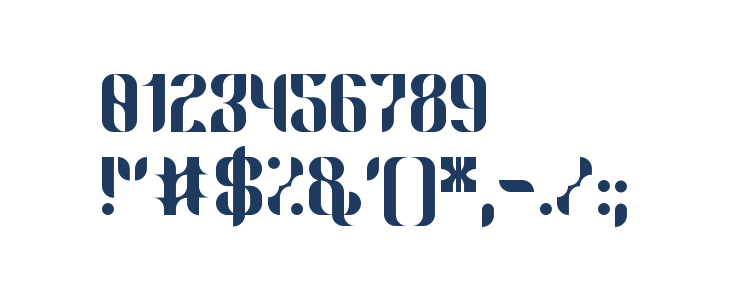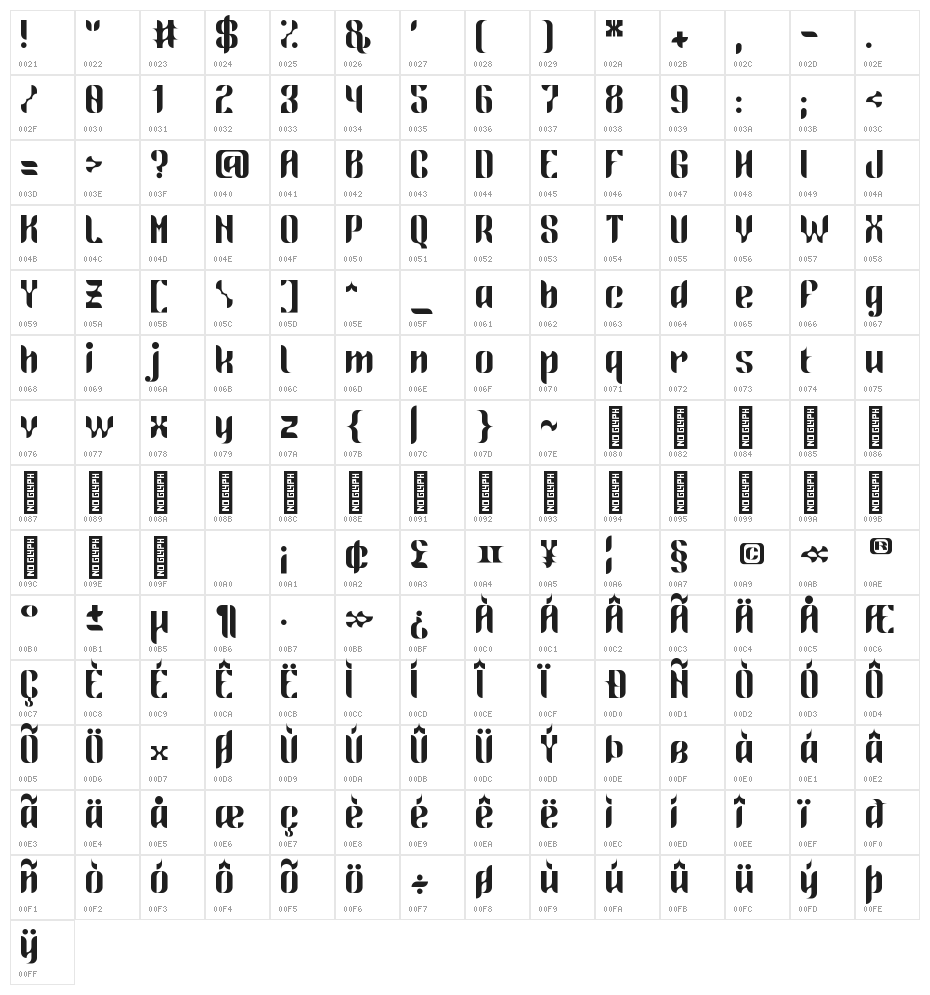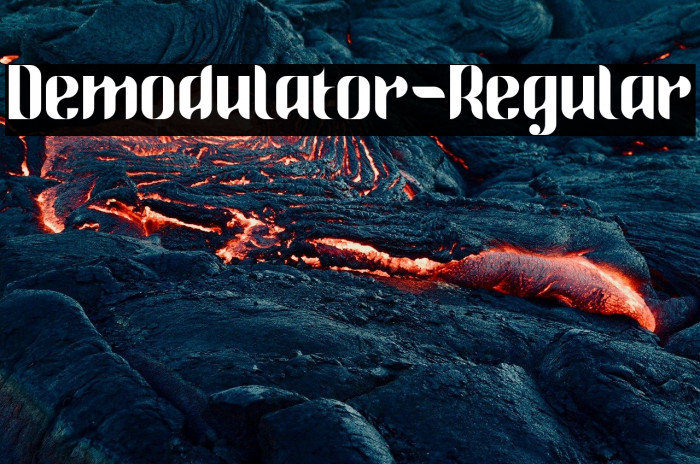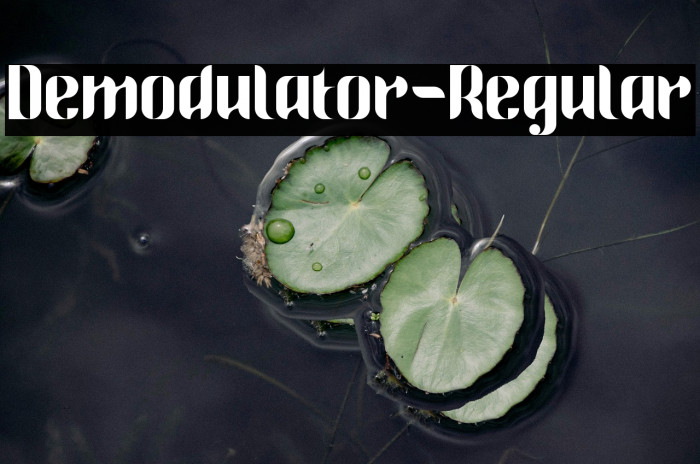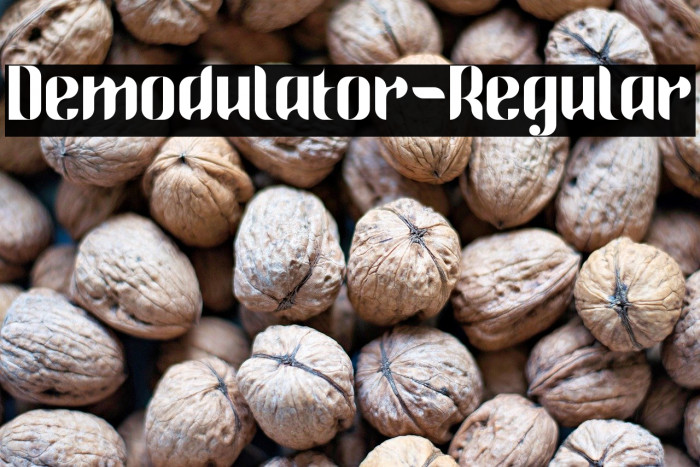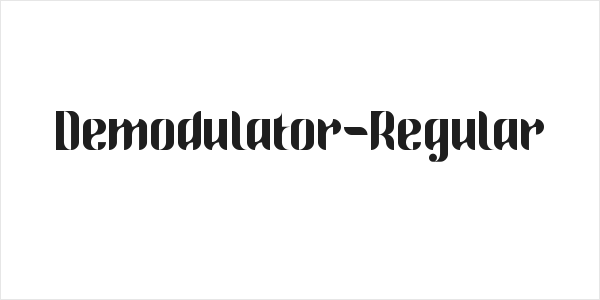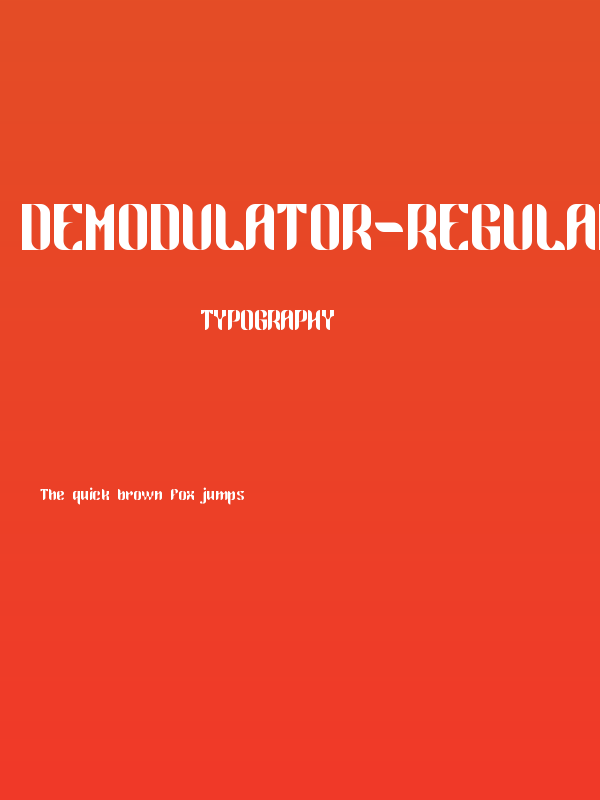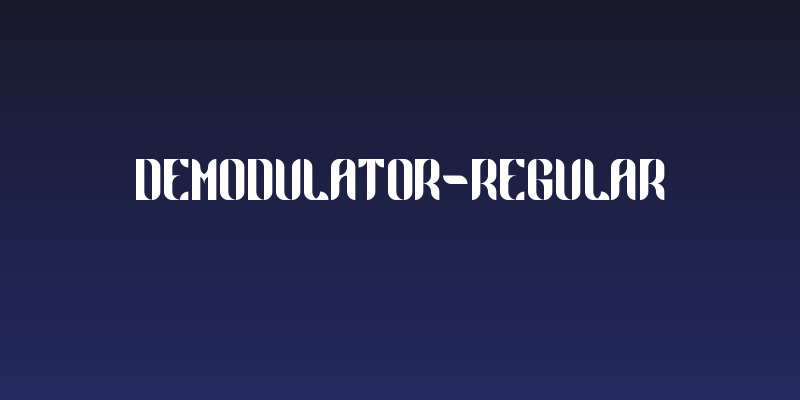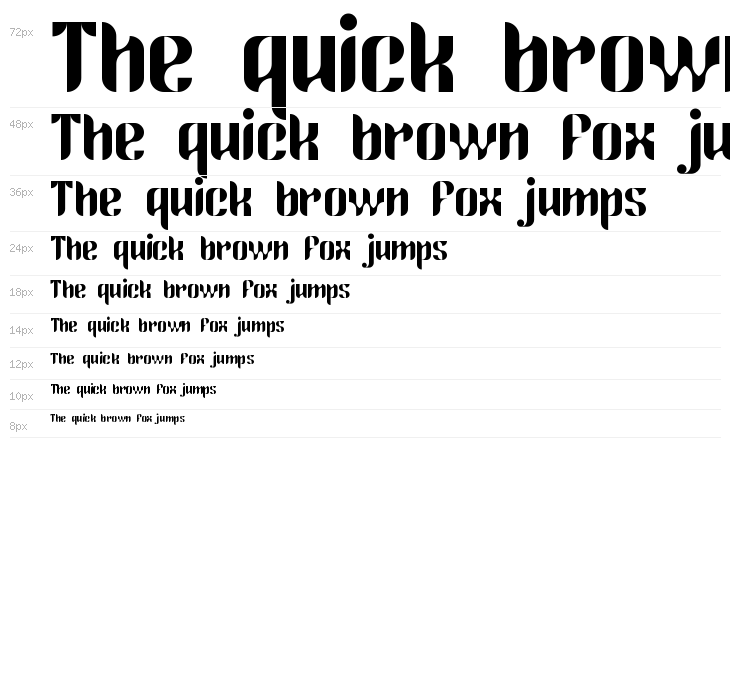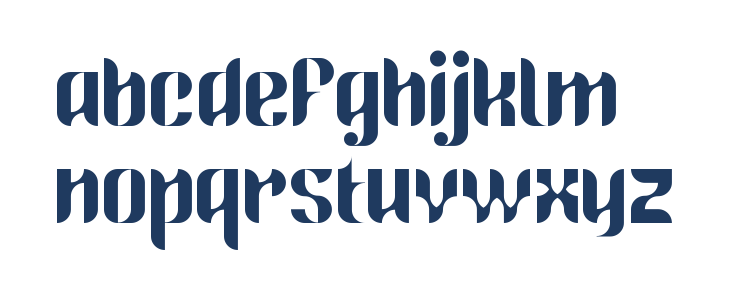
Demodulator-Regular Font
Demodulator-Regular Description
This font features a bold and striking design with a modern twist. The characters are crafted with a unique blend of geometric shapes and sharp angles, creating a visually impactful appearance. The uppercase letters are particularly distinctive, with a strong vertical emphasis and minimalistic curves. The lowercase letters maintain the same boldness, ensuring consistency across the typeface. Numbers and special characters are equally bold, making them stand out in any design. This font is perfect for projects that require a strong, modern aesthetic.
| Proposed Projects | Ideal for branding, posters, headlines, and any design requiring a modern, impactful look. |